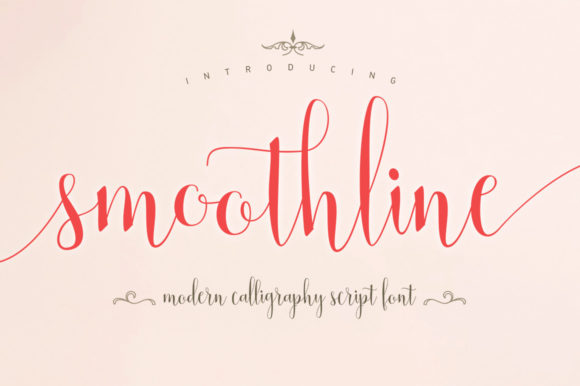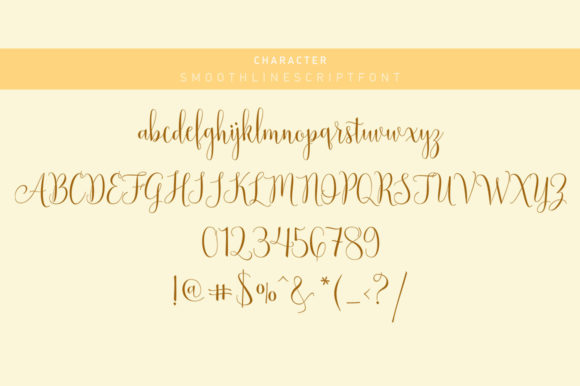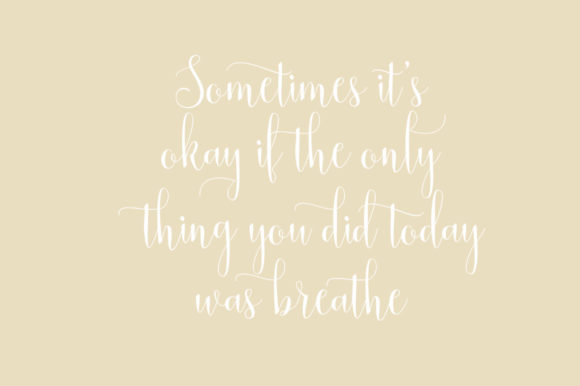
Smoothline Font
About Smoothline Font
Smoothline is an enchanting handwritten font. This versatile script font has a wide spectrum of applications ranging from greeting cards to headlines and is guaranteed to add a romantic feel to your next project. Smoothline is PUA encoded which means you can access all of the beautiful glyphs and swashes with ease!